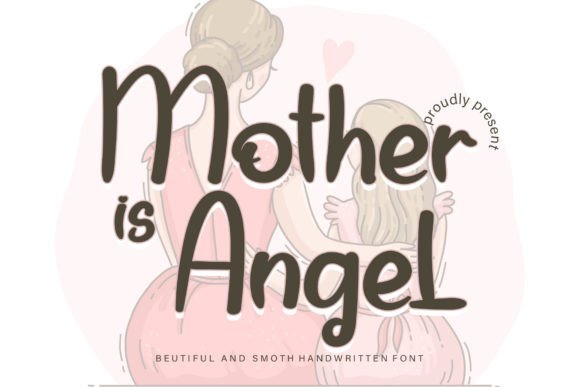
Why Mother is Angel is the Perfect Script Font for Branding
When I sat down to refresh the packaging for a local candle shop that wanted to move from craft fair stalls to boutique shelves, we knew immediately that Mother is Angel, a stunning Script Handwritten typeface, was the missing piece in their visual identity puzzle. Choosing the right Fonts is often the difference between a product that looks homemade and one that looks professionally curated, and this specific typeface brings a level of ravishing style that instantly elevates brand perception. In the world of small business branding, typography does the heavy lifting of communicating your values before a customer even reads your product description, and finding a font that balances elegance with approachability can be a challenge.
Creating Elegant Wedding Invitations with Mother is Angel
One of the most powerful applications for Mother is Angel is in the realm of wedding stationery, where the emotional connection to the design is paramount. As a Script Handwritten font, it captures the intimacy and personal touch that couples desire for their special day, making it an ideal choice for Fonts used in save-the-dates, ceremony programs, and reception menus. When we tested this typeface on a sample invitation suite, the fluid strokes and natural rhythm of the letters created a sense of movement that felt organic rather than mechanical. This is crucial for wedding invitations because the typography sets the tone for the entire event; a stiff font suggests a rigid affair, while Mother is Angel suggests warmth, love, and celebration. The font's ability to handle long names and intricate details without losing legibility makes it a reliable workhorse for professional designers and DIY brides alike who want to create gorgeous wedding invitations that guests will cherish.
Elevating Social Media Posts with Eye-Catching Typography
In the fast-paced environment of Instagram and Pinterest, stopping the scroll is half the battle, and Mother is Angel serves as a fantastic tool for creating eye-catching social media posts that demand attention. Whether you are a lifestyle blogger announcing a new collaboration or a handmade seller showcasing a limited edition drop, using this Script Handwritten style adds a layer of sophistication that standard system Fonts simply cannot match. We found that when overlaying this font on high-quality product photography, the contrast between the clean image and the flowing text created a visually striking composition that encouraged engagement. For social media graphics, readability on mobile screens is key, and Mother is Angel maintains its character even at smaller sizes, provided it is used for headlines or short, impactful phrases rather than dense blocks of text. This versatility allows brands to maintain a consistent aesthetic across their feed, stories, and reels, reinforcing brand recognition every time a follower sees a post.
Designing Beautiful Stationary Art for Small Businesses
Beyond digital presence, the tangible feel of printed materials remains a cornerstone of building trust with customers, and Mother is Angel shines brightly when applied to beautiful stationary art like thank-you cards and business correspondence. For small business owners, including a handwritten-style note in a shipment can turn a one-time buyer into a loyal advocate, and using a premium Script Handwritten font ensures that even printed notes feel personal and heartfelt. When selecting Fonts for these materials, it is important to choose a typeface that reflects the care put into the product, and this font delivers that sentiment effortlessly. We utilized Mother is Angel for a series of packaging inserts for a skincare brand, and the result was a cohesive look that tied the product label to the unboxing experience. The font's graceful curves complement minimalist packaging designs, adding a touch of luxury without overwhelming the overall aesthetic. This attention to detail in stationary art signals to the customer that the brand values quality in every aspect of their operation.
Pairing Mother is Angel with Modern Typography Styles
To get the most out of Mother is Angel, understanding how to pair it with other typefaces is essential for creating a balanced and professional brand identity. Since this is a decorative Script Handwritten font, it works best when paired with clean, neutral Fonts such as a simple sans serif or a classic serif for body text and secondary information. For example, using Mother is Angel for a logo or a main headline on a café menu, while utilizing a geometric sans serif for the item descriptions and prices, creates a hierarchy that guides the reader's eye naturally. This combination prevents the design from feeling too busy or difficult to read, ensuring that the ravishing style of the script remains the focal point. When designing product labels, this pairing strategy helps comply with labeling regulations by keeping ingredient lists and warnings clear and legible, while still allowing the brand name to stand out with personality. Experimenting with different weights and styles of supporting Fonts can help tailor the look to specific industries, from the rugged charm of a coffee roaster to the sleek minimalism of a tech startup.
Ultimately, investing in a versatile and high-quality typeface like Mother is Angel is an investment in the longevity and professionalism of your brand. Whether you are crafting wedding invitations, designing social media assets, or printing beautiful stationary art, this Script Handwritten gem offers the flexibility and charm needed to make your business memorable. By carefully considering how you integrate this font into your broader design system and pairing it with complementary Fonts, you can create a visual language that speaks directly to your ideal customer. Remember to always check the licensing terms to ensure you have the right to use the font for commercial projects, especially if you are selling physical goods or digital templates. With the right application, Mother is Angel can transform ordinary design elements into extraordinary brand experiences that resonate with audiences and drive growth.